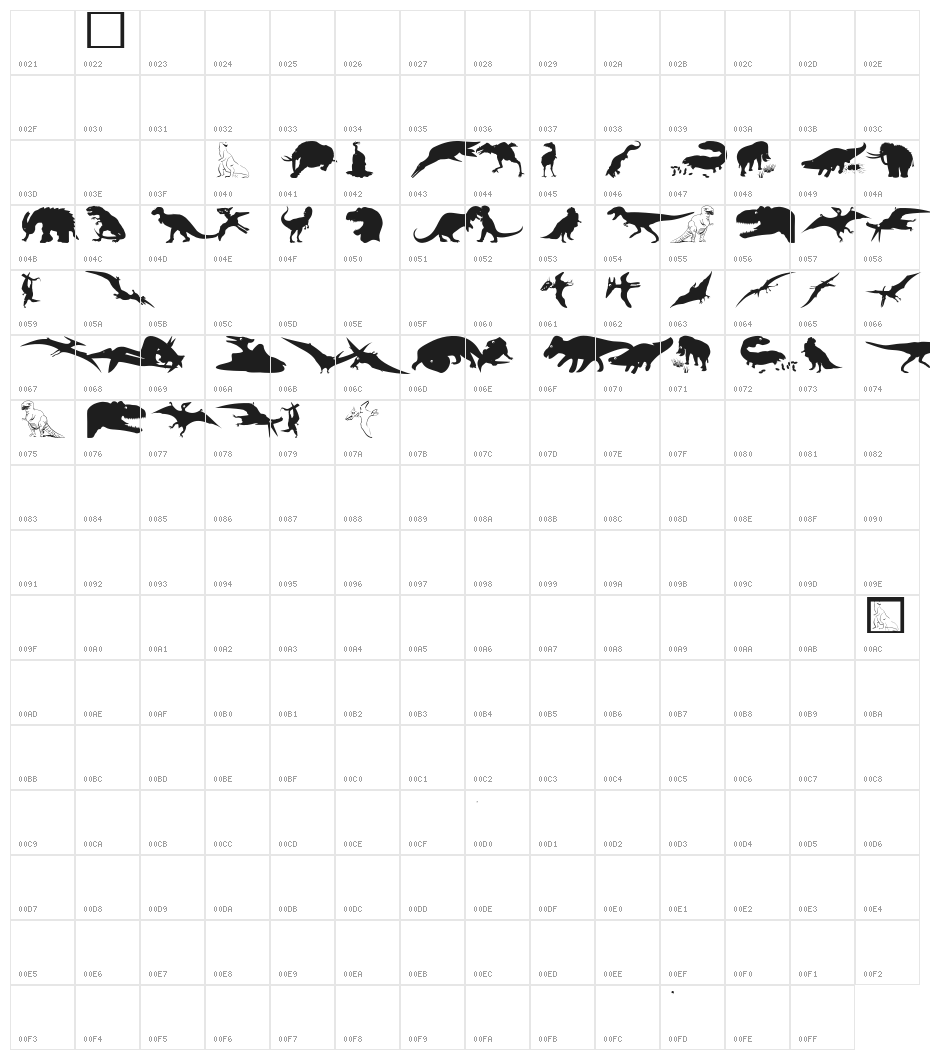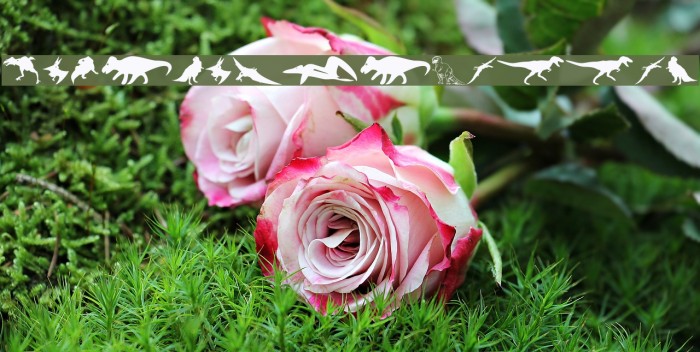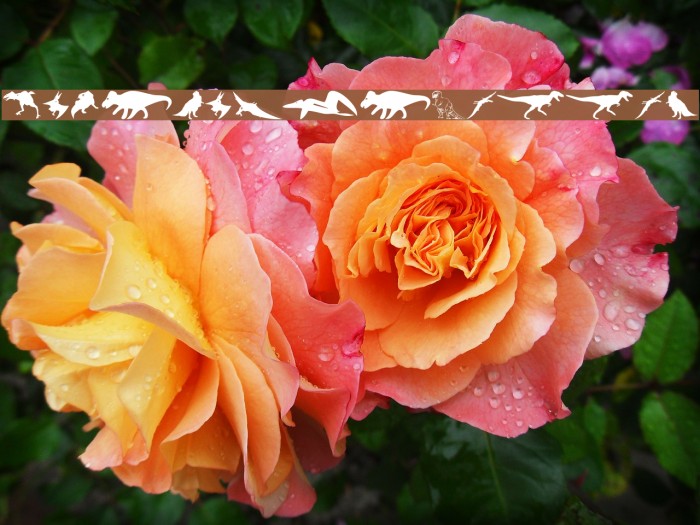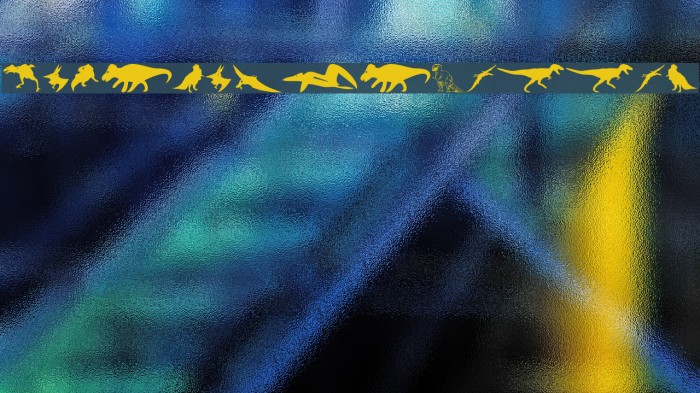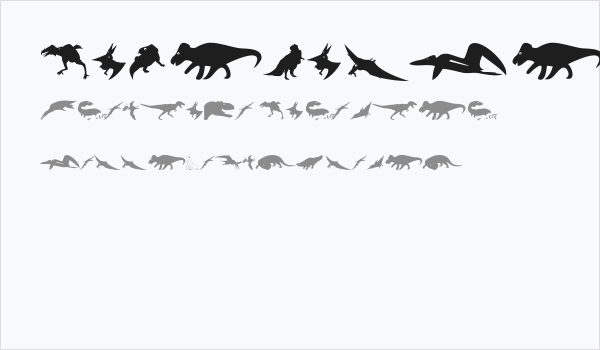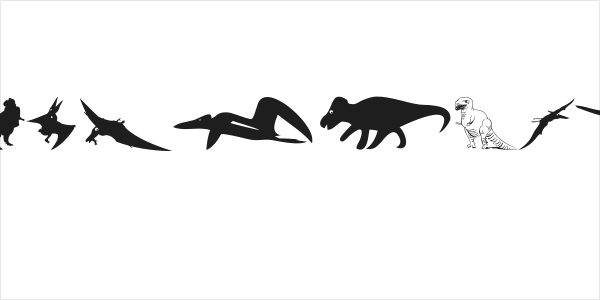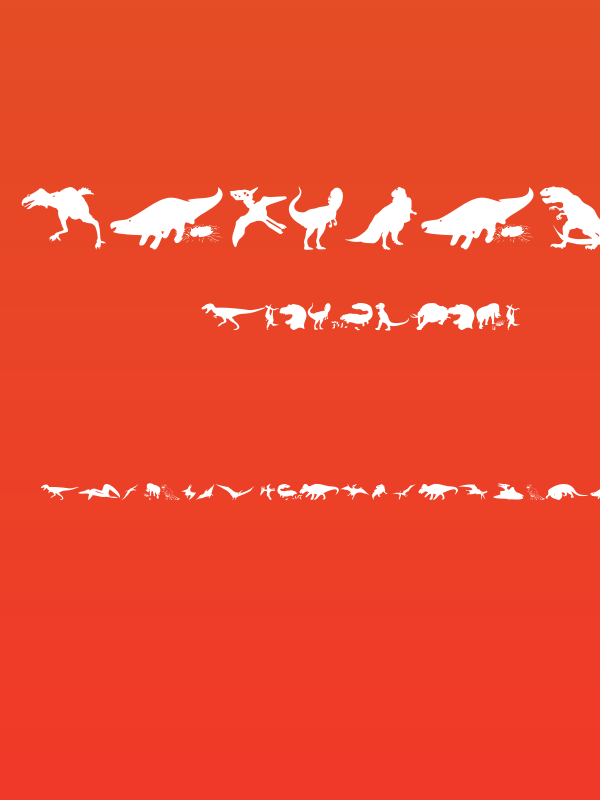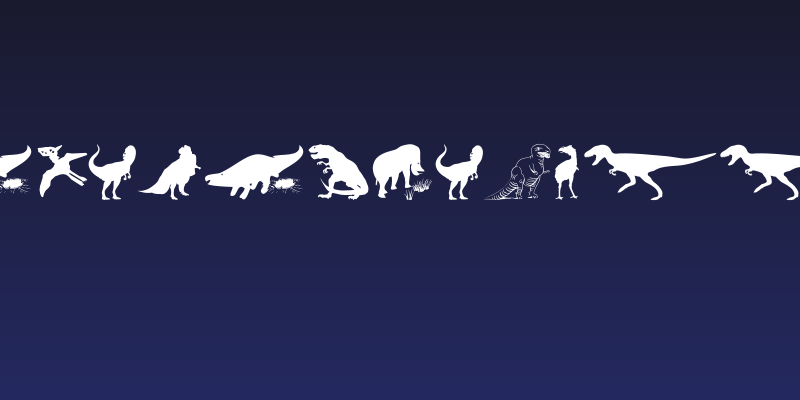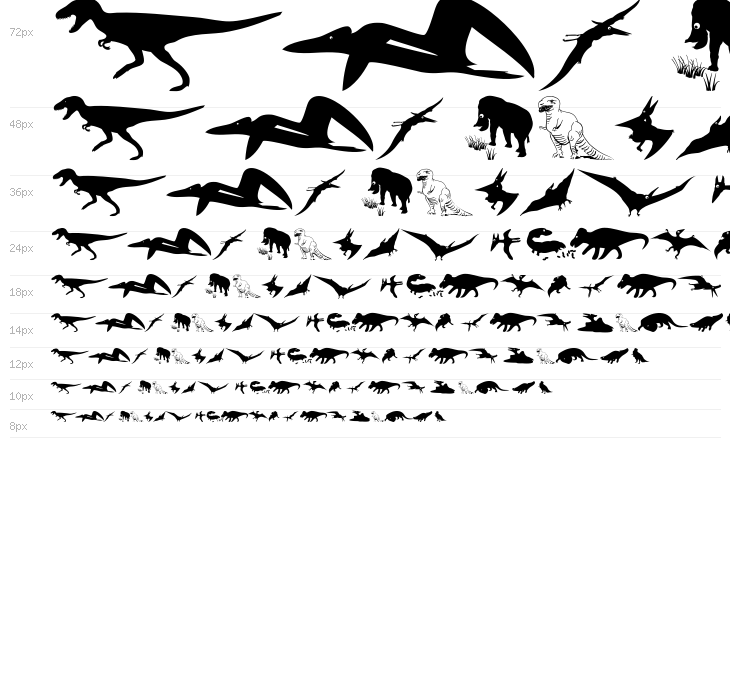
DinoSilhouettes Font
DinoSilhouettes Description
This collection features a variety of dinosaur silhouettes, capturing the essence of prehistoric creatures in a bold and striking manner. Each silhouette is distinct, showcasing different species with unique postures and characteristics. The designs are simple yet effective, using solid black shapes to create recognizable forms without any interior details. This style allows for easy recognition and a strong visual impact, making it suitable for various creative projects. The silhouettes range from fierce predators to gentle herbivores, providing a comprehensive representation of dinosaur diversity.
| Use Case | Logos, Illustrations, Educational Materials |
| Proposed Projects | Ideal for educational materials, children's books, themed party decorations, and merchandise like t-shirts or posters. |